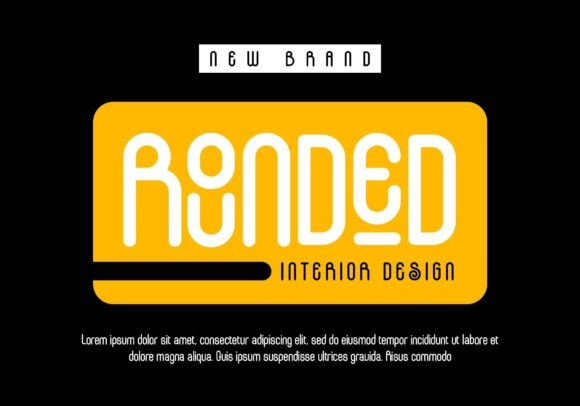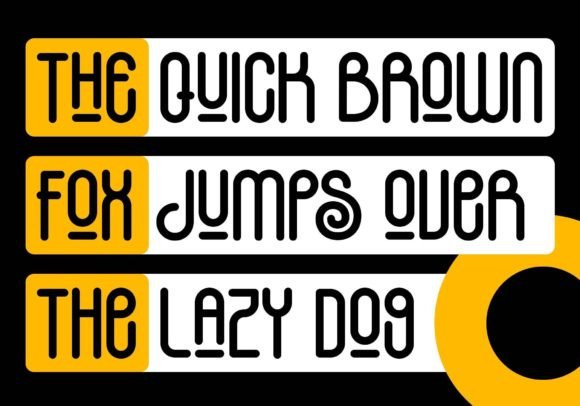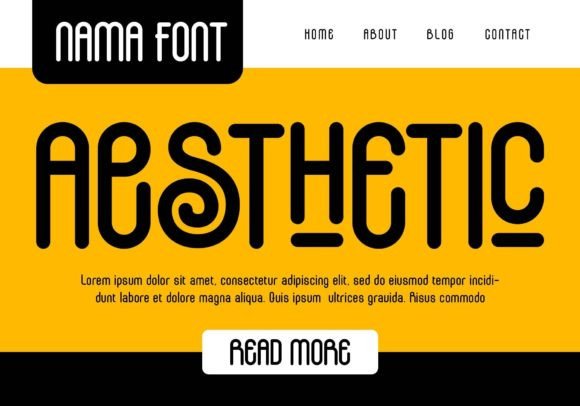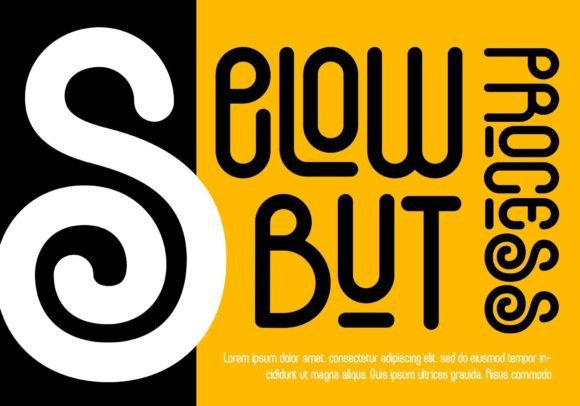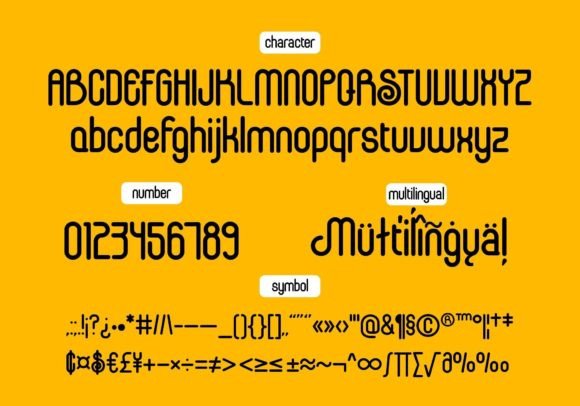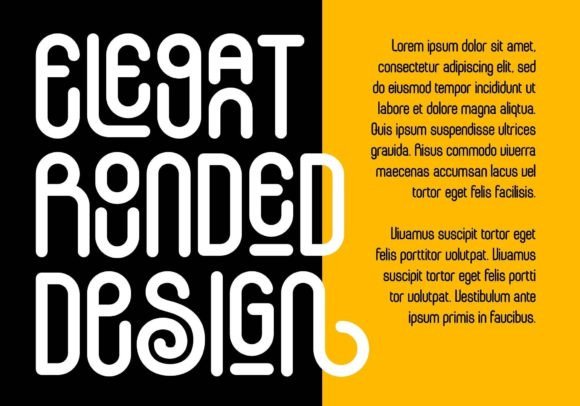
Introduction to Mountogen Rounded Font
Mountogen Rounded Typeface Style has a unique and very strong character that makes all designs look unique and have a modern feel.
Mountogen Rounded has its own charm, so it will be very suitable to be combined with any style Has Lots of Alternatives and ligatures to add a great interactive feel to every design.
Key Features of Mountogen Rounded Font